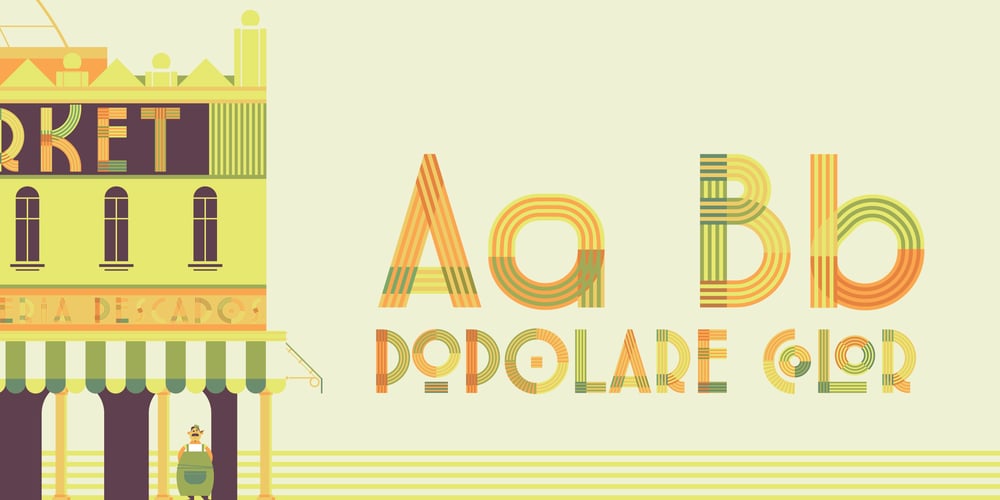
Popolare
Popolare font
Popolare Font Family was designed by Alejandro Paul, Martin Laksman and published by Sudtipos. Popolare contains 2 styles and family package options. A collaboration between Martin Laksman (illustrator) and Ale Paul (type designer) for Sudtipos as part of the first project at the foundry between illustration and type design to create a collection of colorfonts. About the font: The people, the popular things that unites us and shapes us, also shapes this typography, inspired by markets and architecture, futurism and football. Popolare unites all this in a linear interweaving of forms that bring us a little closer to the simple things of everyday life. Inspired by the popular culture of the first half of the 20th century, markets, customs, tastes and scents helped create this colorful typography. Package: Popolare comes in file with a pre-defined color palette . You can always change the colors converting the text to outlines. Technical info to use: The package contains a normal OTF font in Black and White and a colorfont in SVG-TTF format. To be able to use the color file you need to have installed Adobe Photoshop CC2017 or Adobe Illustrator CC2018. Not all the browsers support color fonts so please be sure to use them as graphics.